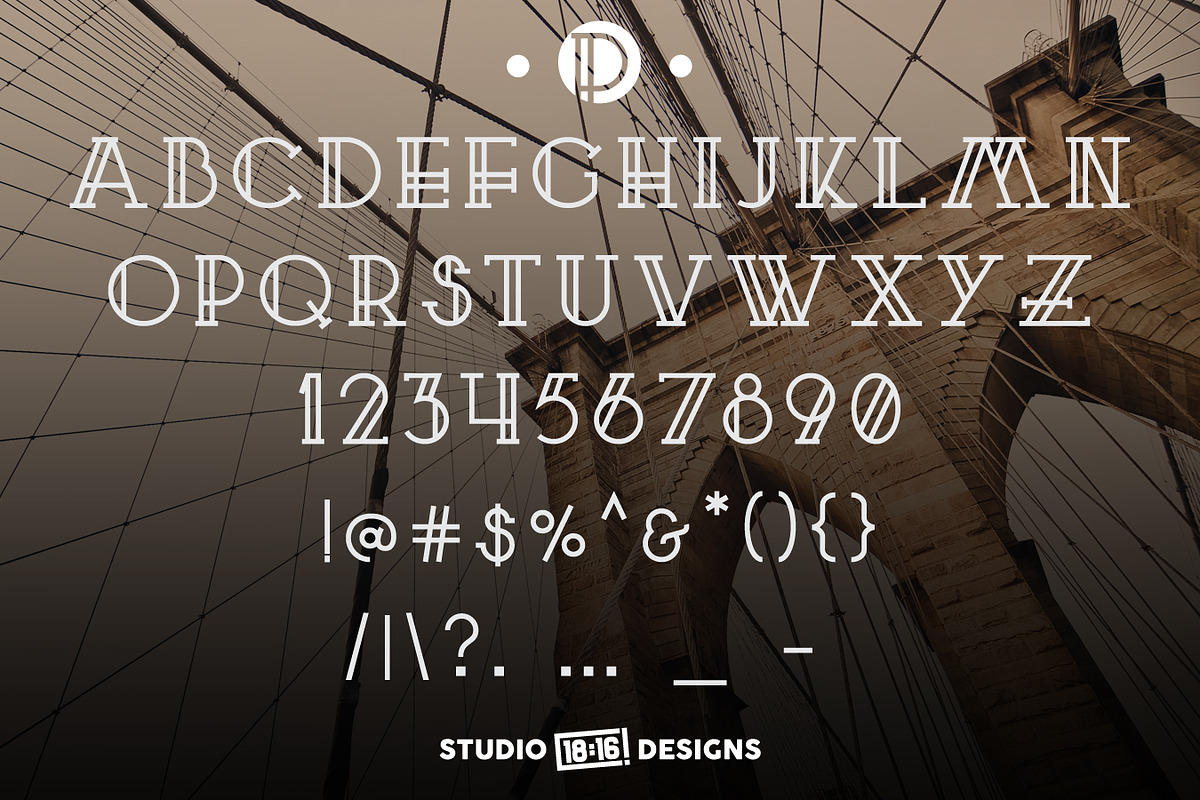
Proverbs Regular | A Slab Serif Font
Proverbs Regular | A Slab Serif Font by Studio 1816 Designs is a font selected for branding, posters, packaging, typography.
- This font uses all uppercase glyphs.
- The lowercase glyphs are small caps.
Why Proverbs Regular | A Slab Serif Font is worth a look
Proverbs Regular | A Slab Serif Font by Studio 1816 Designs fits naturally into Branding, posters, packaging, typography.